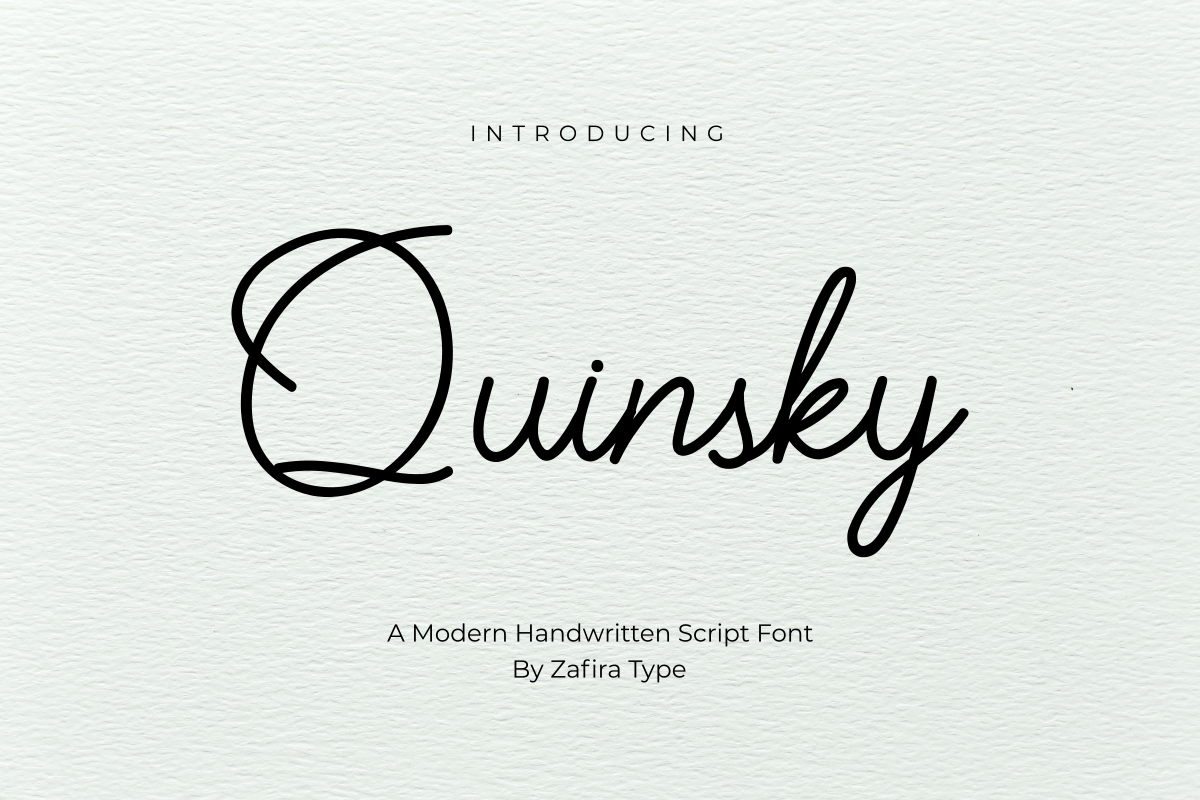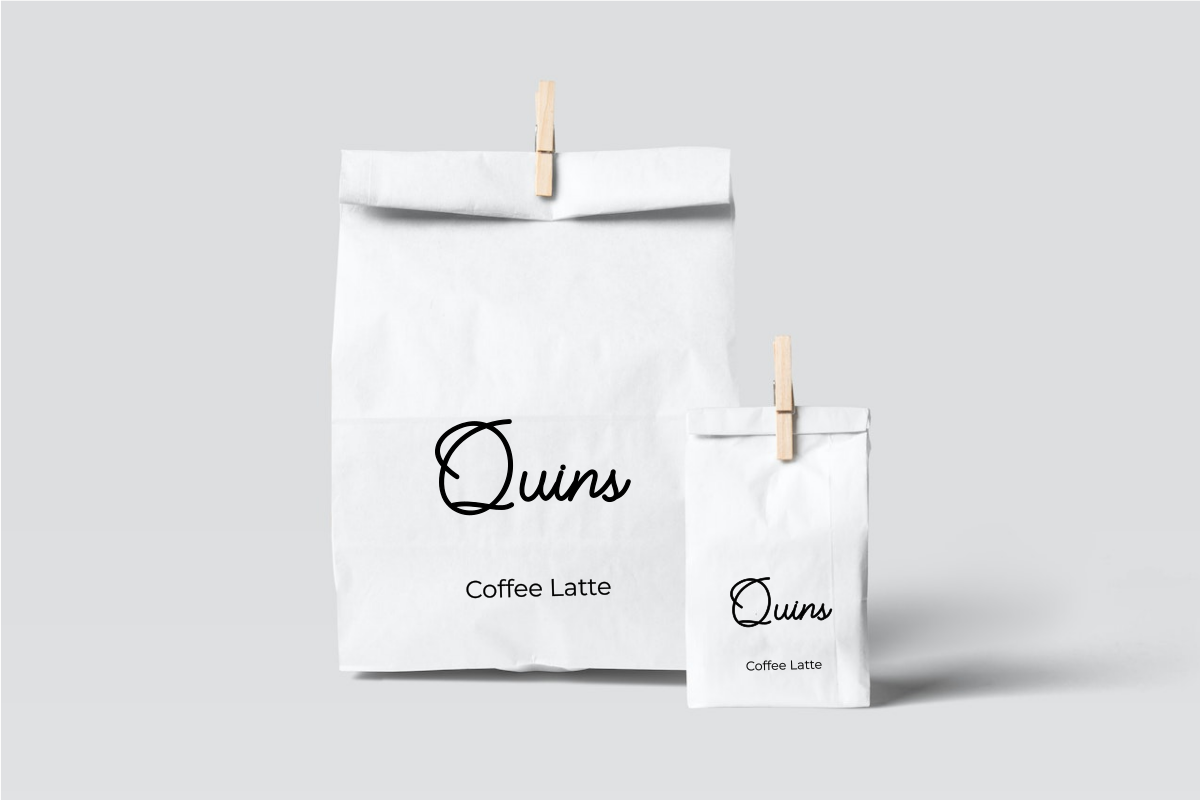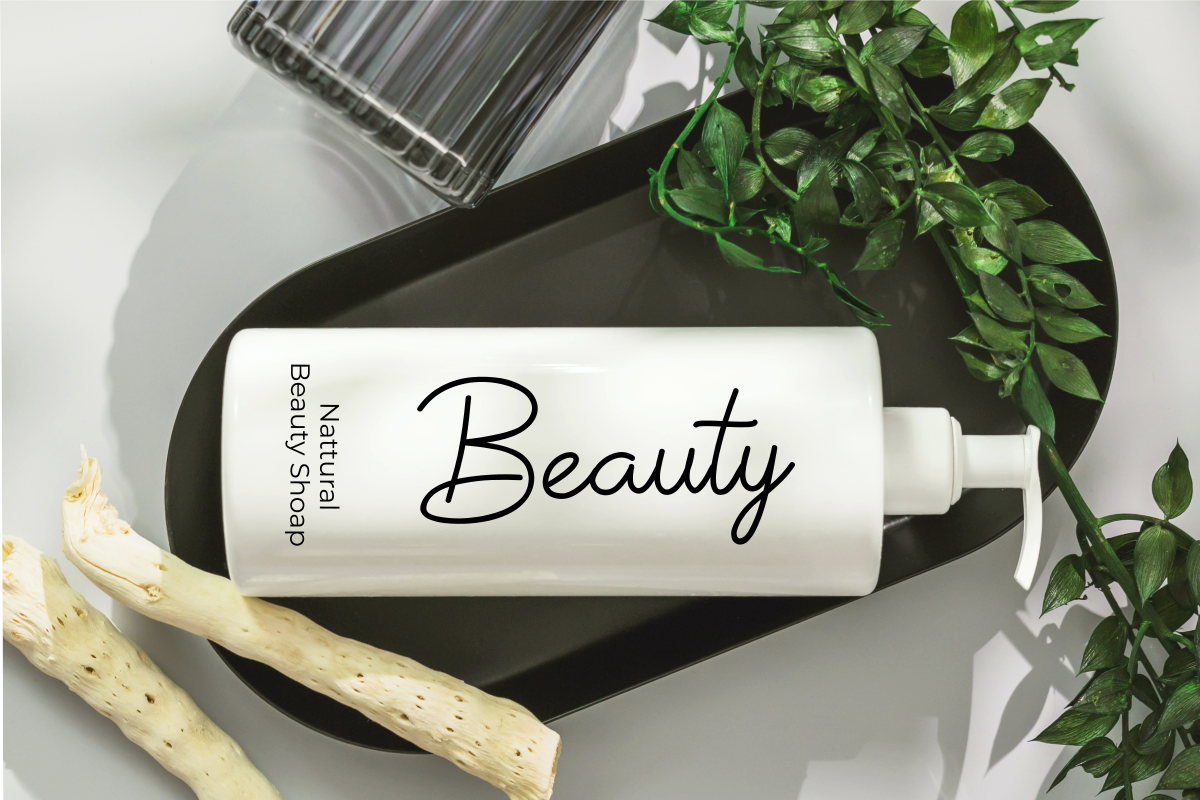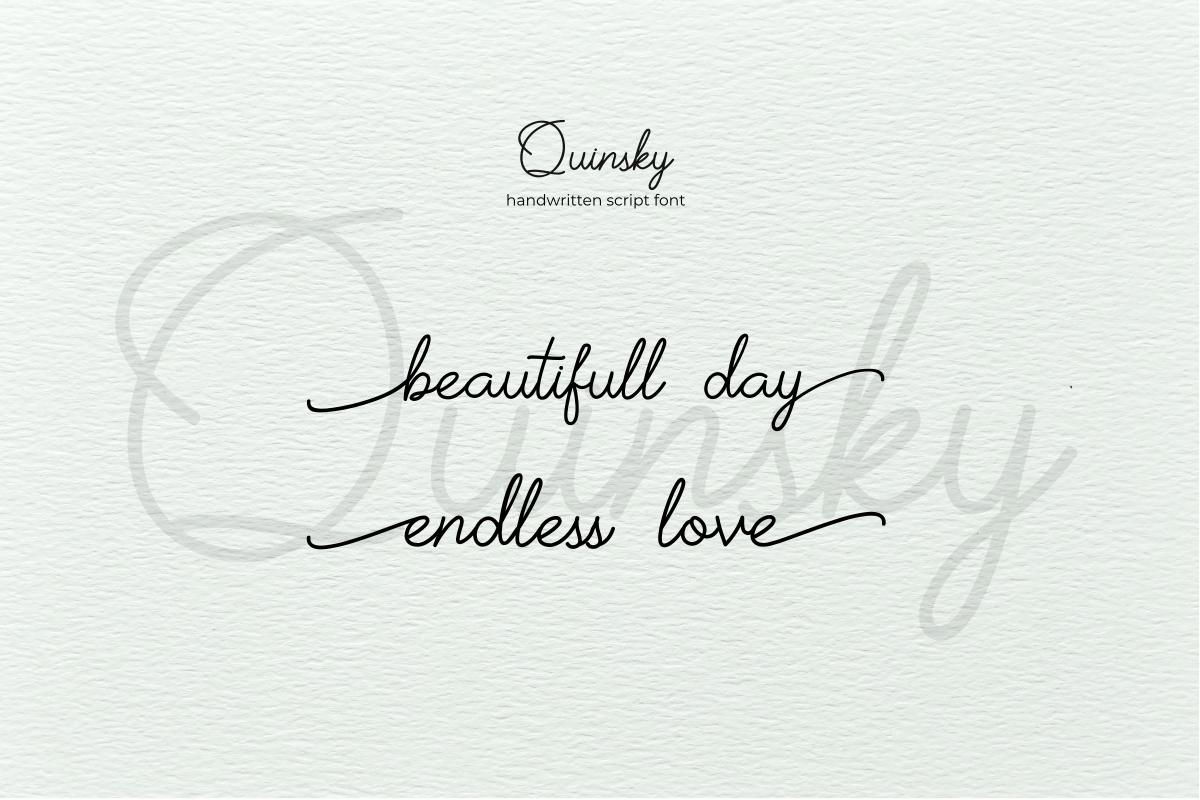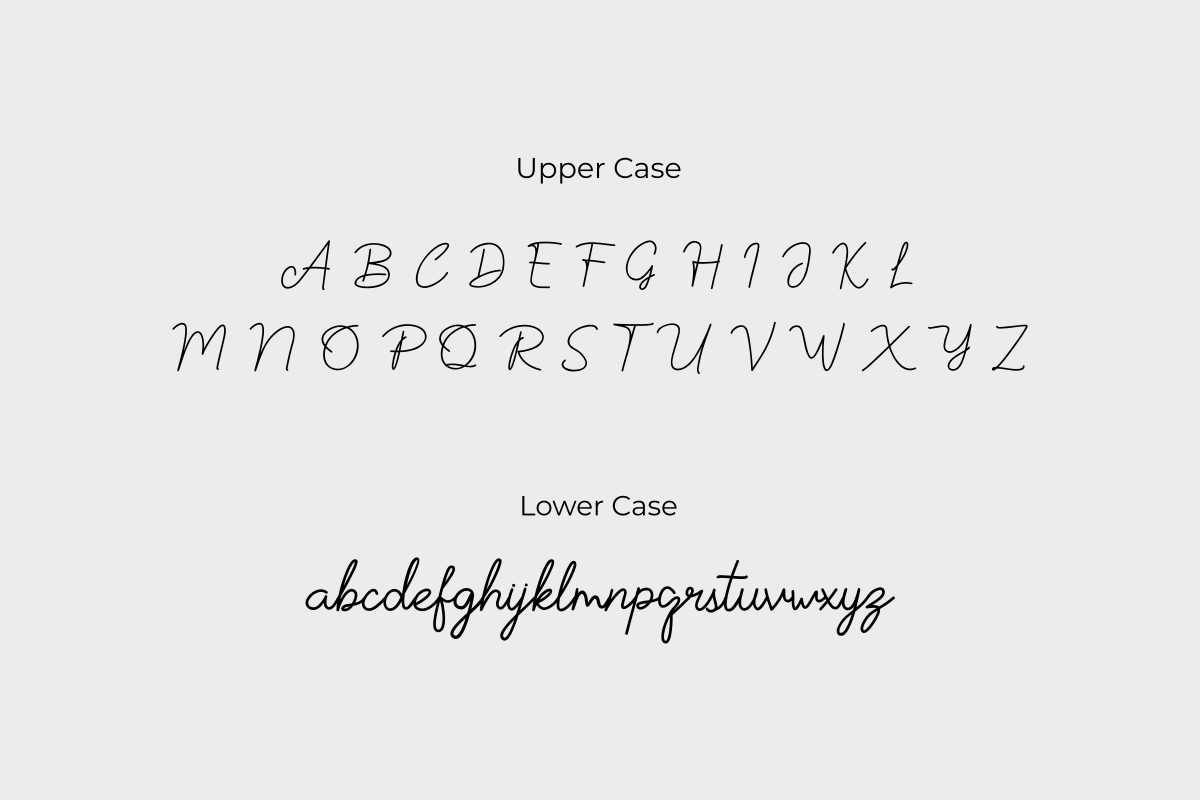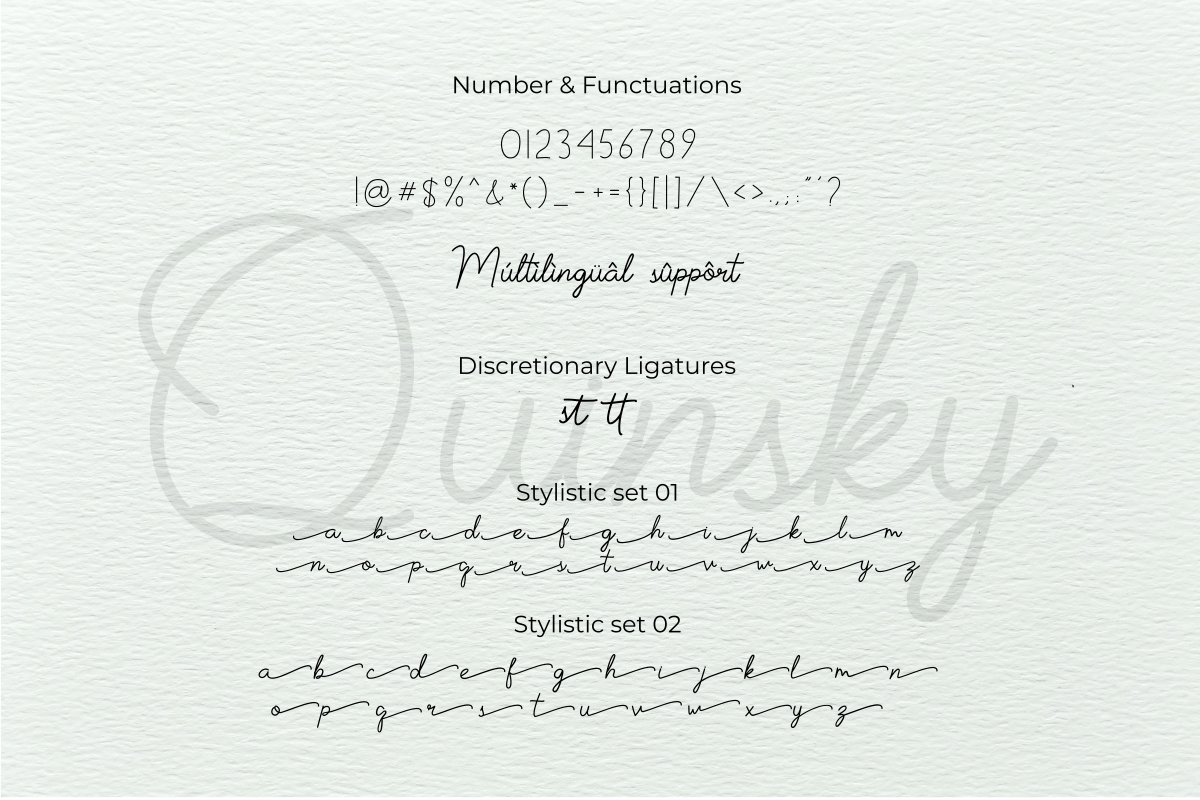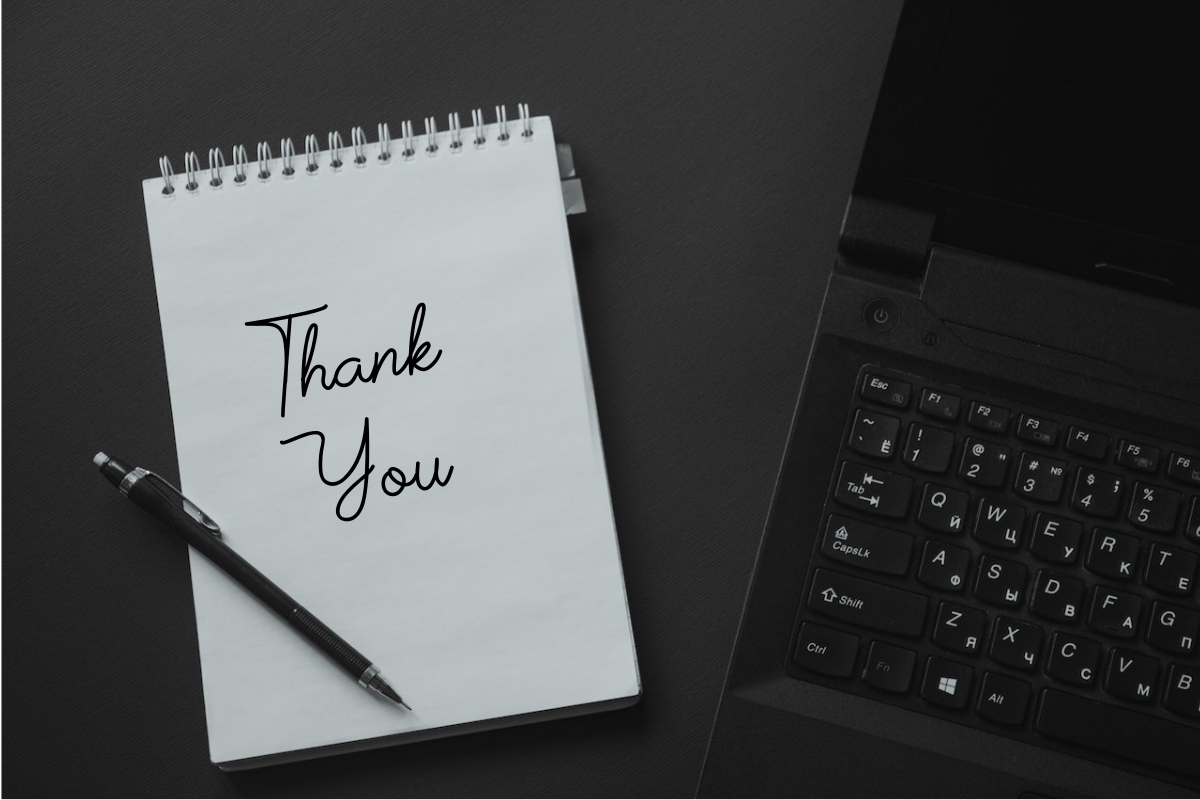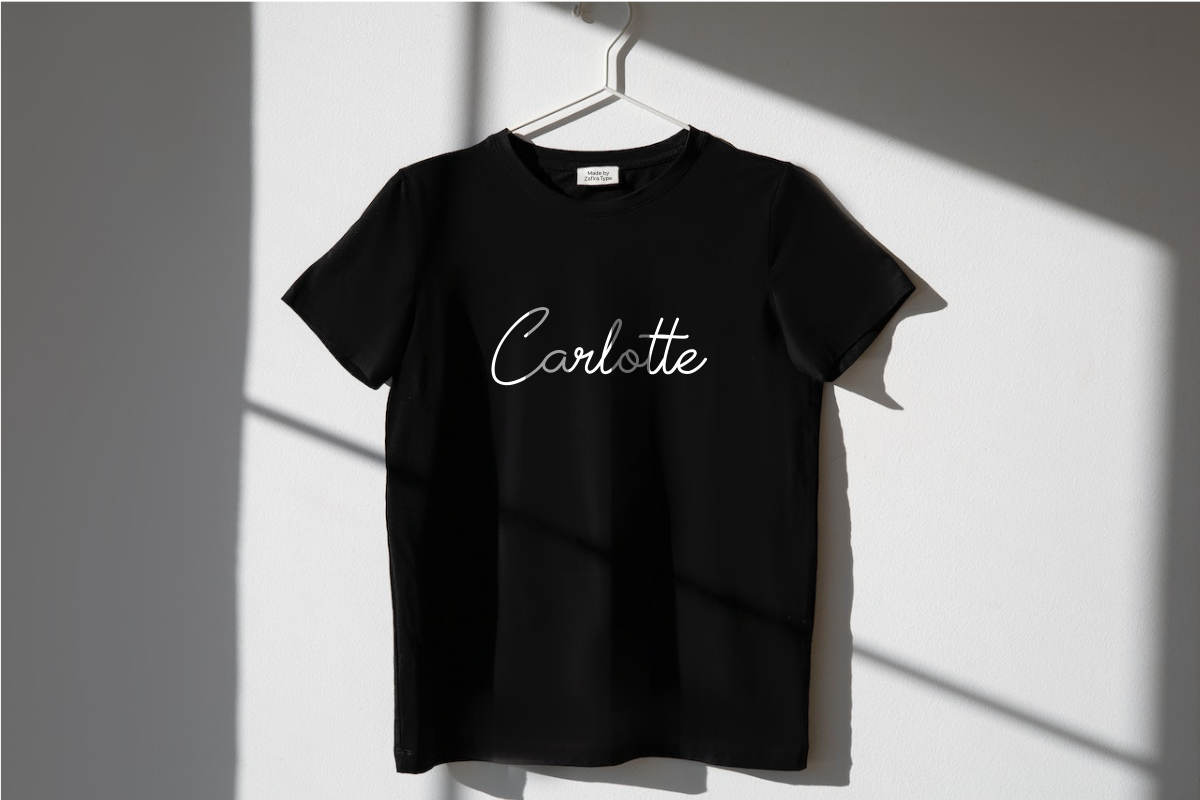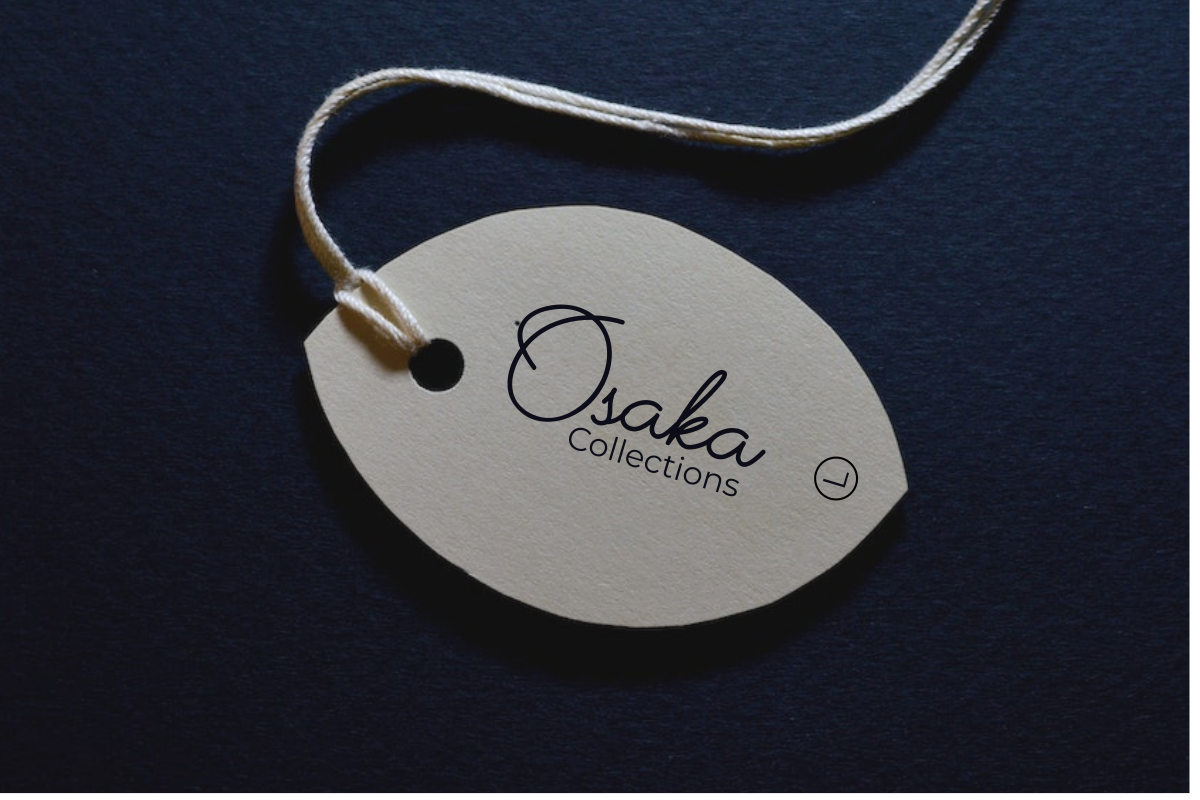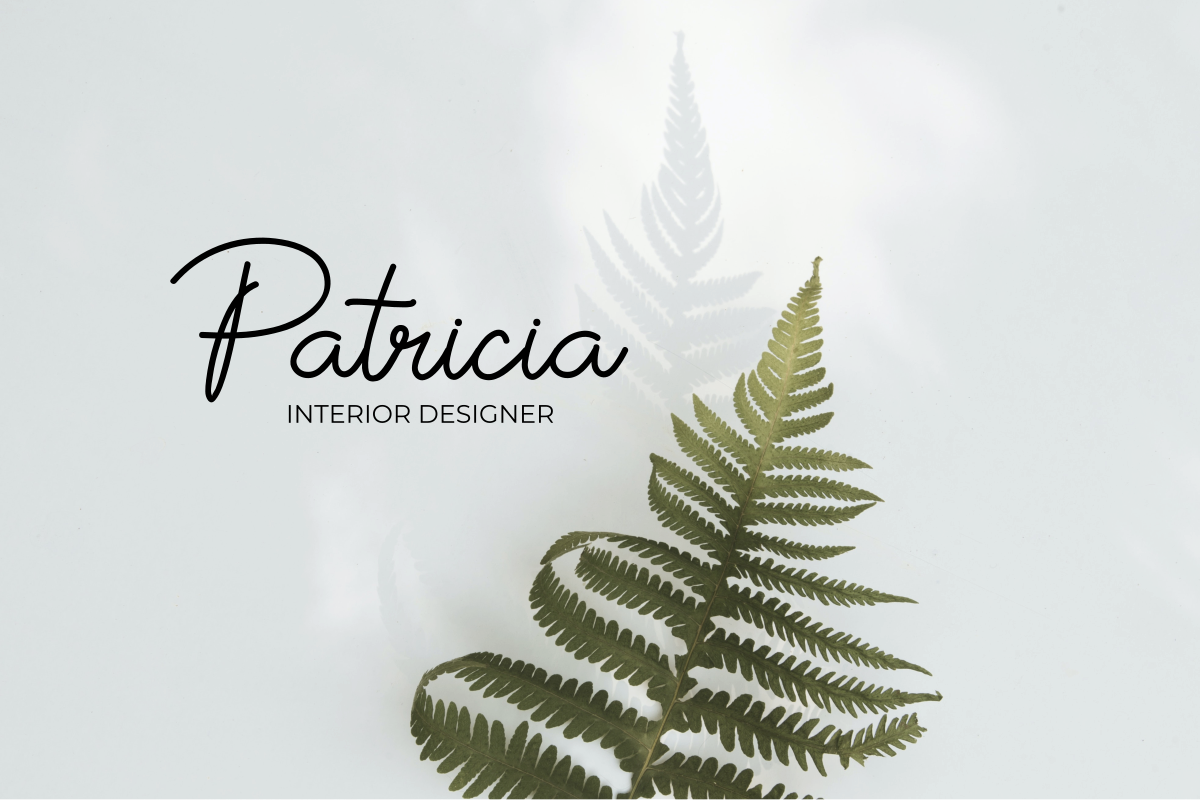
Quinsky
Quinsky is a monoline script font with a handwritten signature Style. Quinsky font was created with an original handwriting pen. This collection of scripts is perfect for personal branding. this works well for many applications. Quinsky would be perfect for photography, watermarks, social media posts, advertisements, logos & branding, invitations, product designs, labels, stationery, photography, wedding designs, product packaging, special events, fashion, websites, or anything that needs handwriting taste.